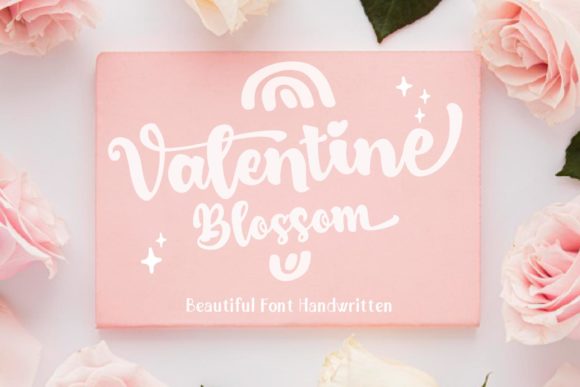
Unleash the allure of your designs with Valentine Blossom Font, an enchanting script font poised to spark romance in every creation. This exceptional font, meticulously crafted by Nico Muslib, is a captivating blend of elegance and playfulness, promising to infuse your projects with a dash of charm.
Adorned with delicate hearts dotting its glyphs, Valentine Blossom Font possesses an innate ability to transform your designs into mesmerizing works of art. Its graceful curves and fluid strokes evoke a sense of love and joy, making it an ideal font for expressing heartfelt sentiments. Be it a heartfelt quote, a captivating blog post, or a personalized invitation, Valentine Blossom Font is guaranteed to captivate your audience.
With its inherent versatility, Valentine Blossom Font transcends the boundaries of ordinary typography, presenting a world of creative possibilities. Its delicate touch lends itself effortlessly to logos, branding projects, and social media posts, promising to elevate your online presence and leave a lasting impression. Prepare to be captivated by the sheer beauty and limitless potential of Valentine Blossom Font, a font specifically designed to ignite passion and inspire creativity within your designs.